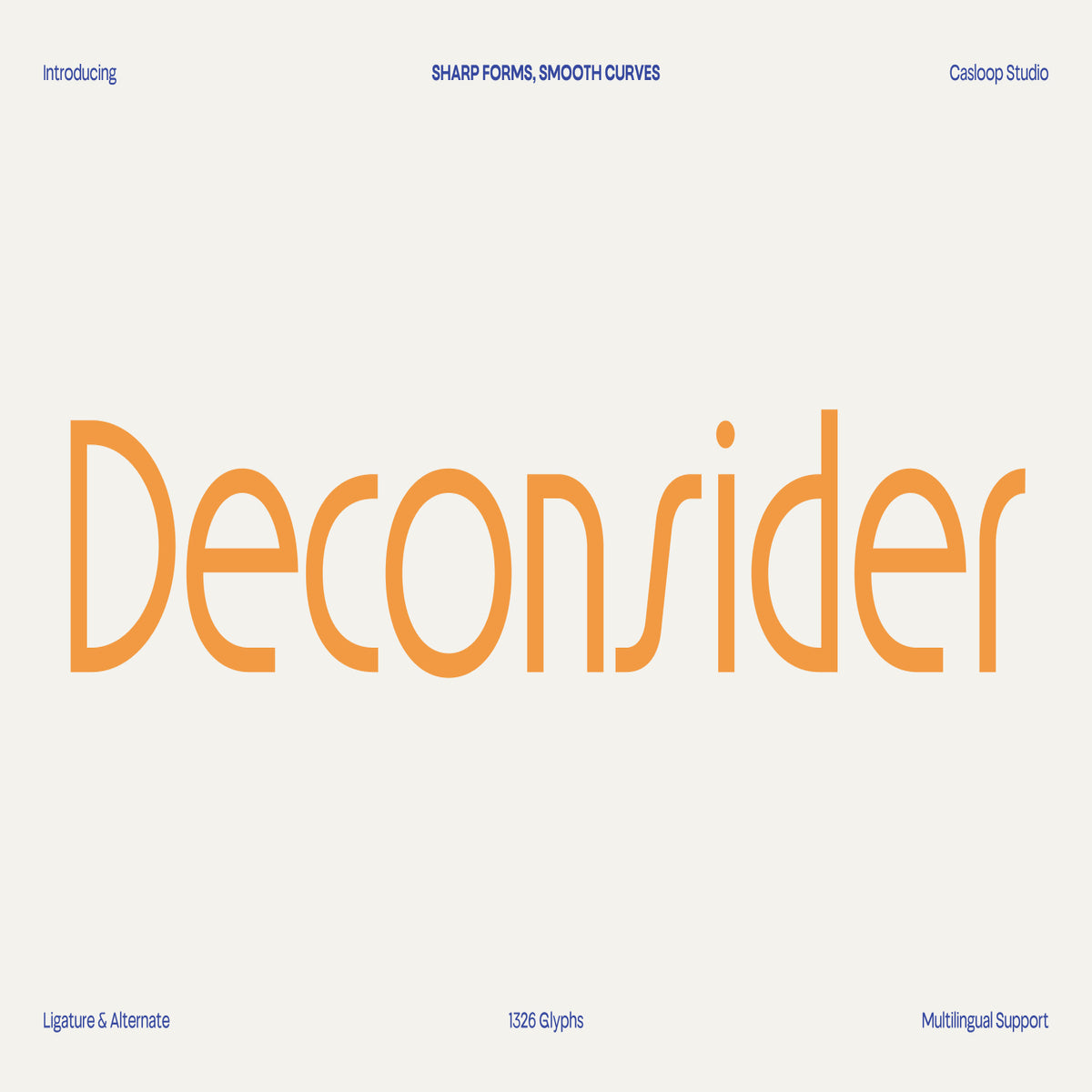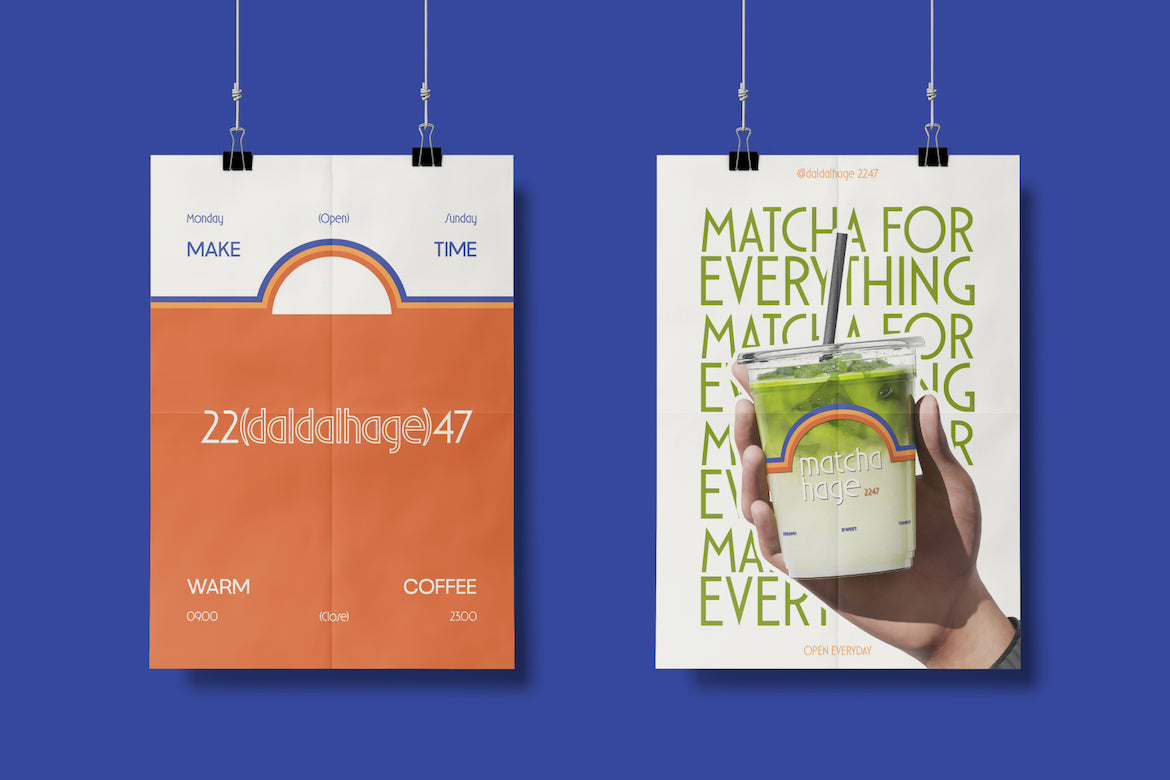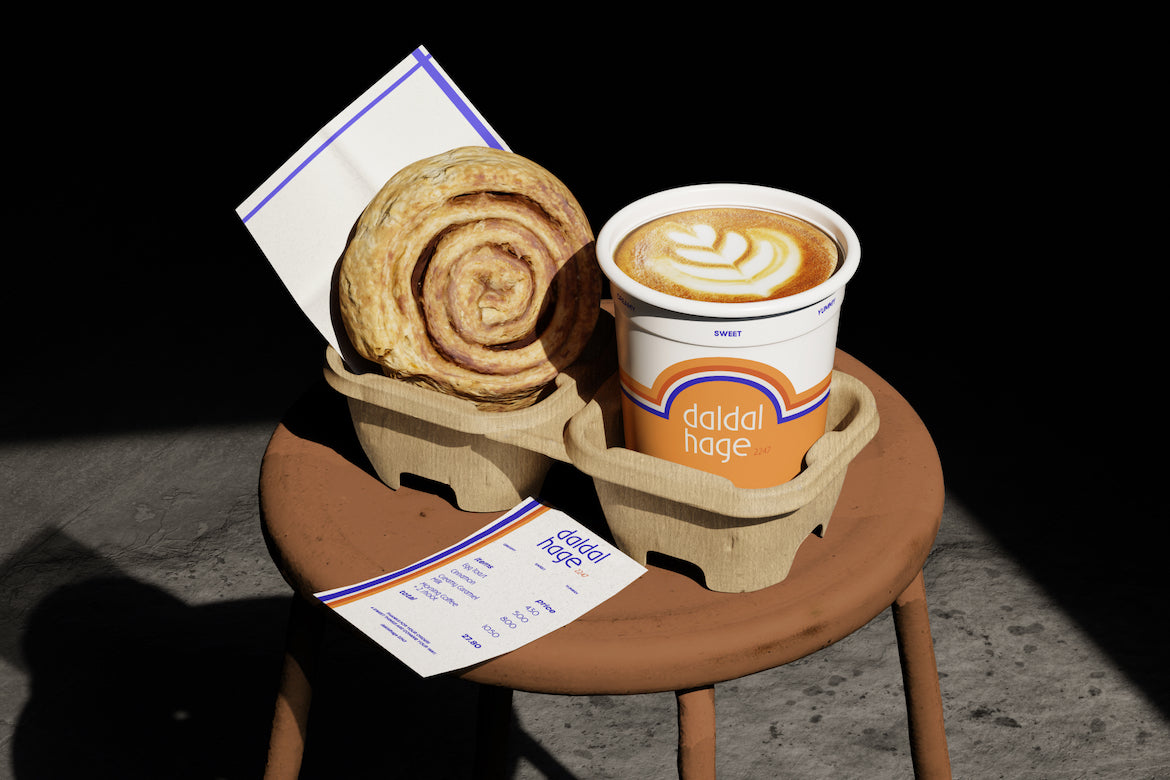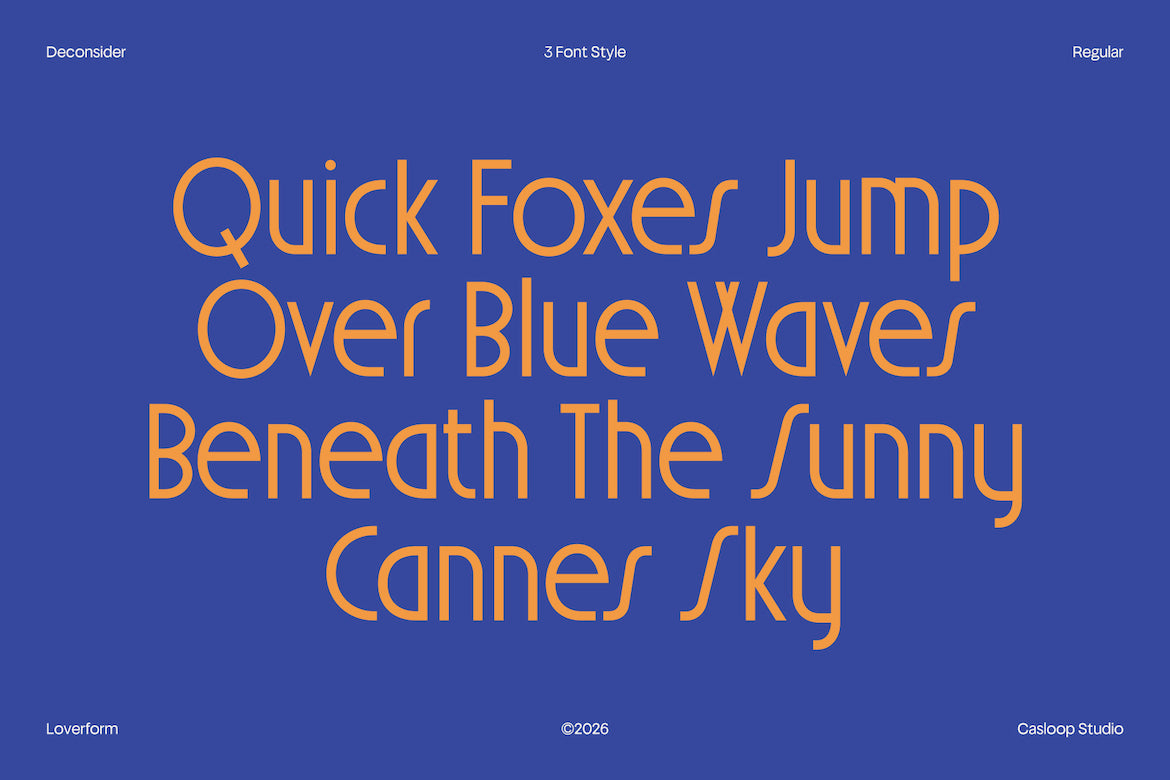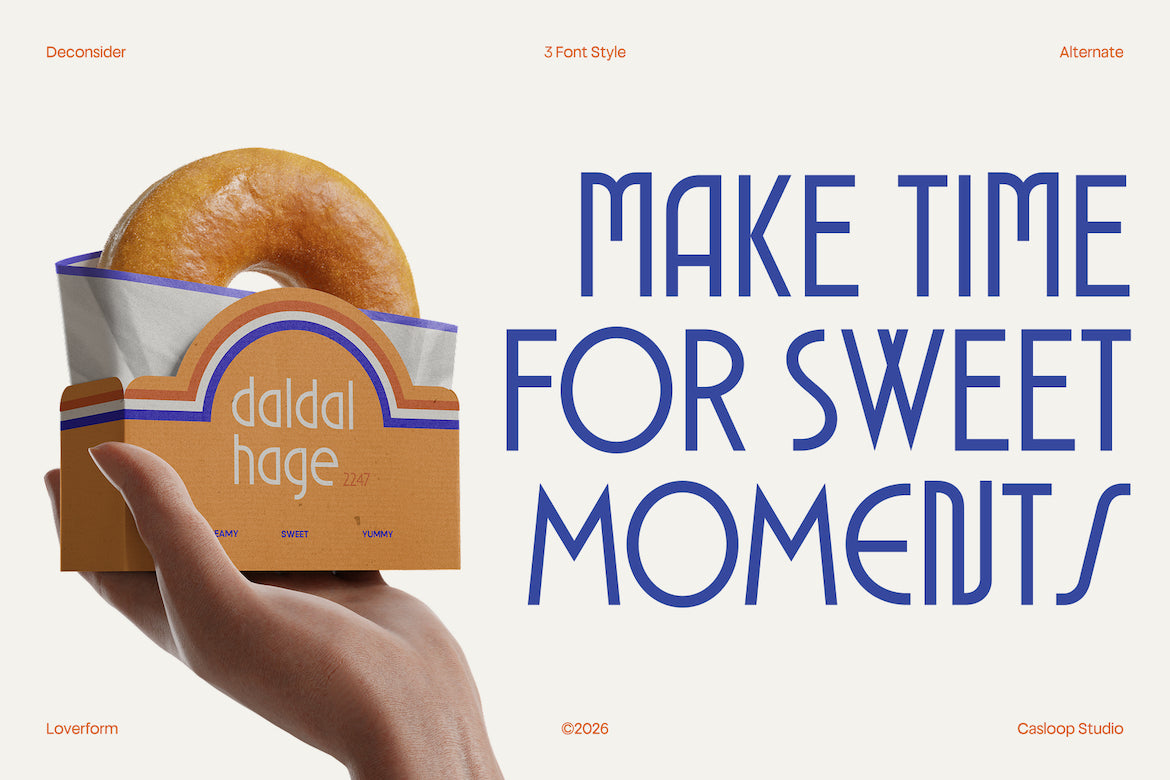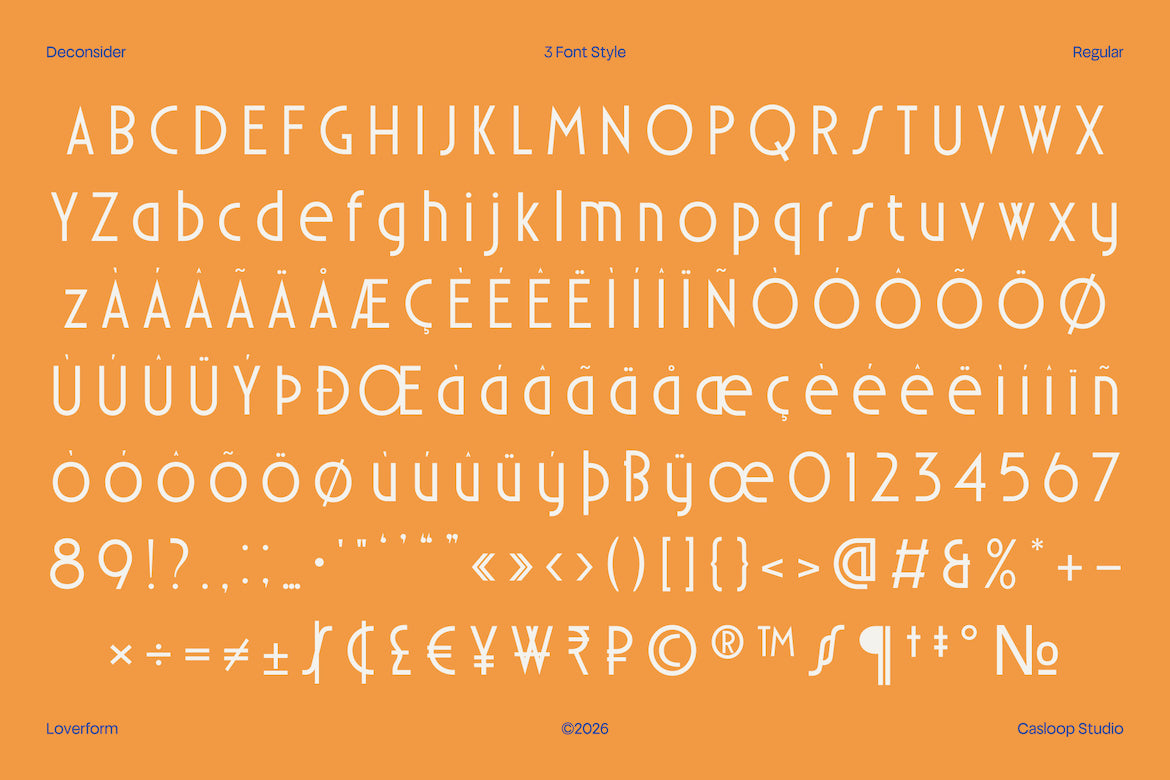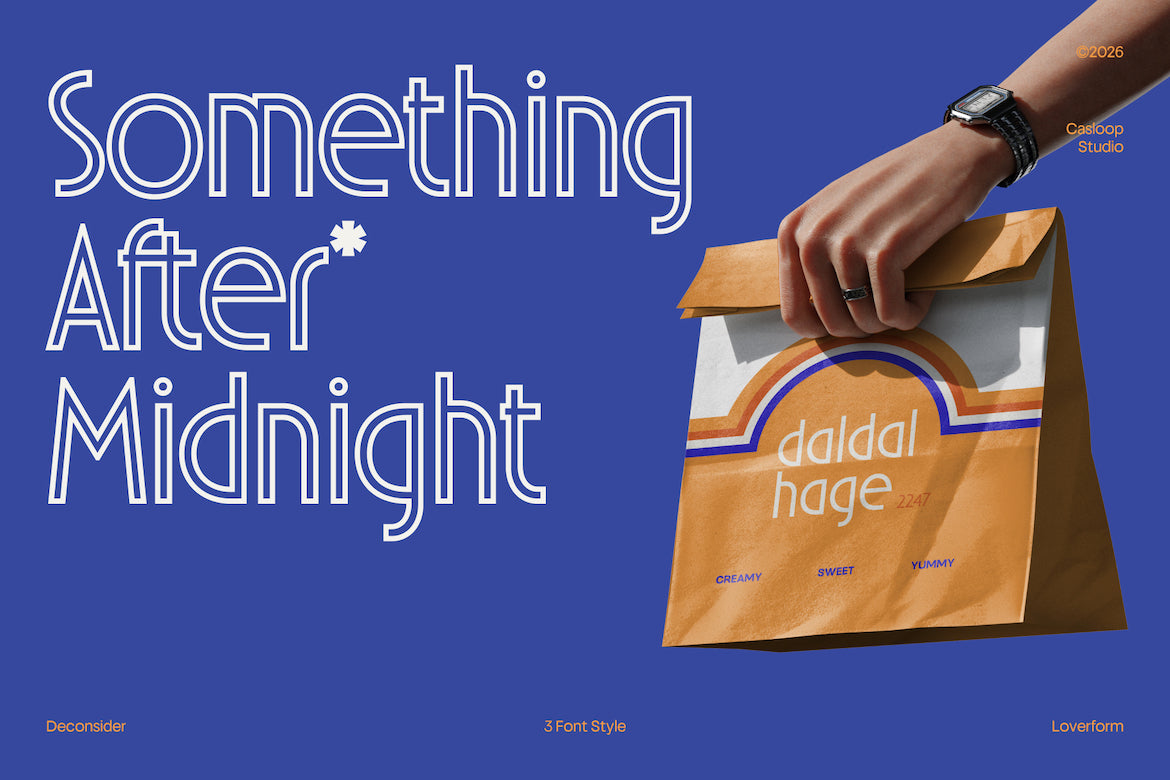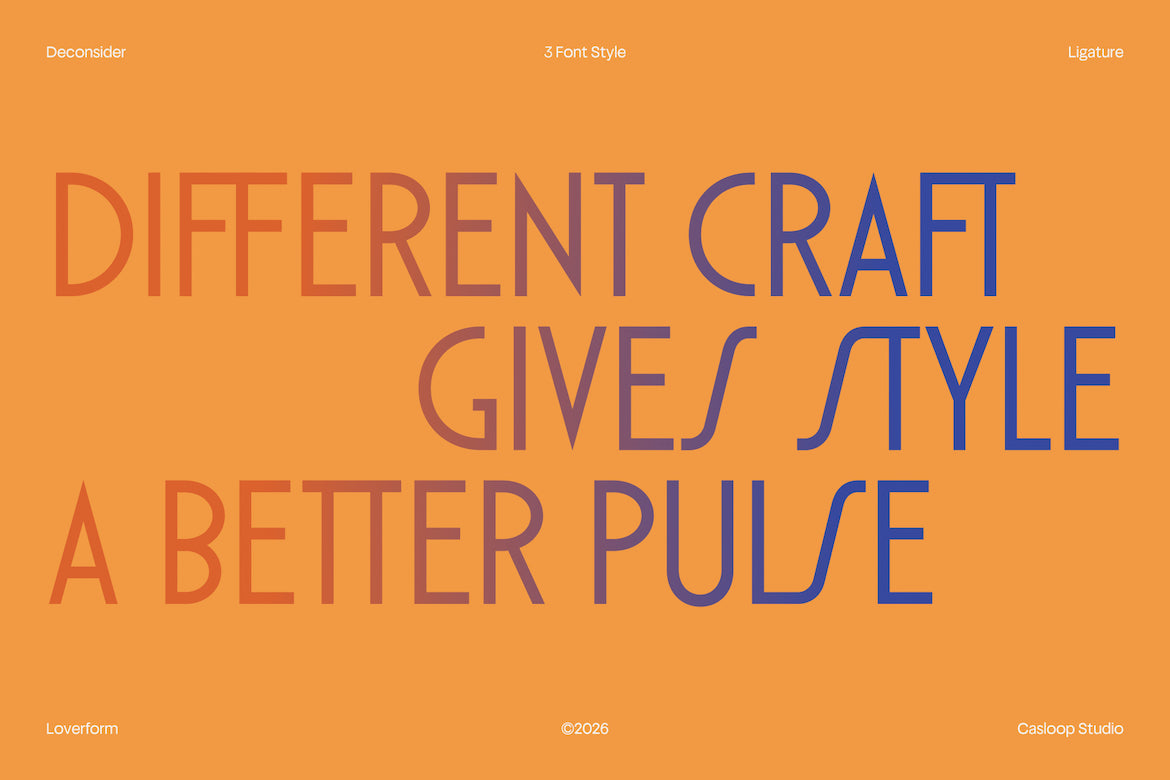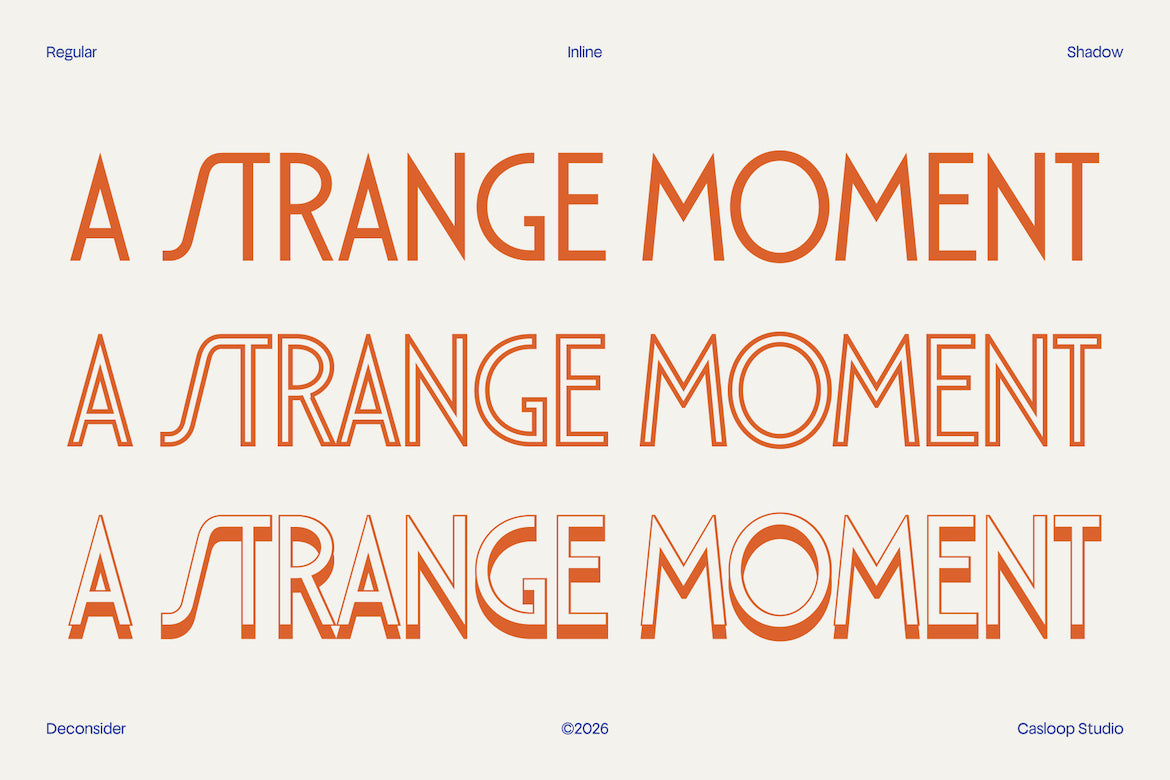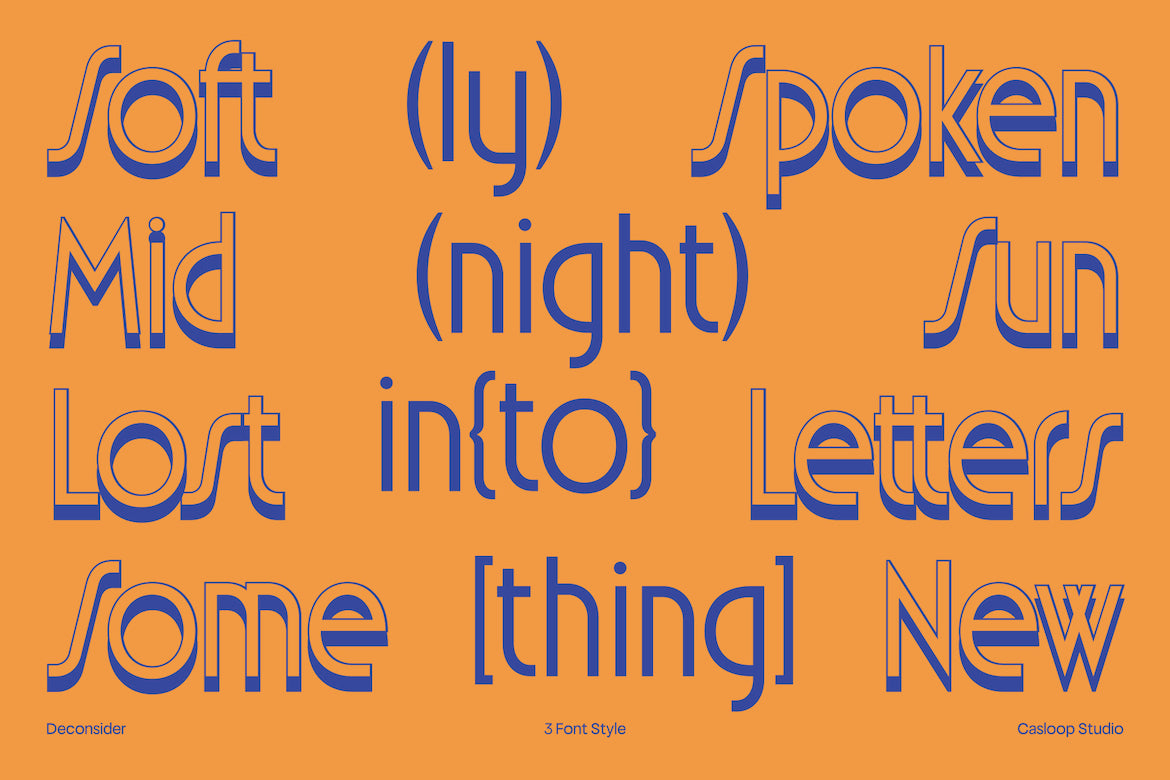
Deconsider – Modern Cafe Food Display Font
Deconsider is a modern display font designed for cafe, food and beverage, and lifestyle branding, balancing structured geometry with a softer, more approachable character. Its defining letters A, M, N, V, C, G, O, S, and e create a distinctive tension between geometric construction and gentle forms, giving the typeface a personality that feels more expressive than a conventional geometric sans. This controlled contrast creates a warm yet confident visual rhythm, making Deconsider highly versatile for cafe identities, menus, packaging, headlines, body text, and vacation-inspired branding that calls for a contemporary but inviting aesthetic. Recommended pairing with: Manrope, DM Sans, Nunito Sans, Avenir, Futura, Helvetica Neue
• Uppercase & Lowercase,
• Numbers and punctuation,
• Ligatures & Stylistic Alternates
• Multilingulal Support : Bosnian, Catalan, Czech, Danish, German, English, Spanish, Estonian, Finnish, French, Irish, Croatian, Hungarian, Icelandic, Italian, Lithuanian, Latvian, Dutch, Norwegian, Polish, Portuguese, Romanian, Slovak, Slovenian, Albanian, Swedish, Turkish.
• Deconsider Regular
• Deconsider Inline
• Deconsider Shadow
Deconsider is a modern display font combining geometric structure with softened letterforms, available in Regular, Inline, and Shadow styles across .otf, .ttf, .woff, and .woff2 formats. It includes uppercase and lowercase characters, numbers, punctuation, ligatures, stylistic alternates, and multilingual support for 27 languages.